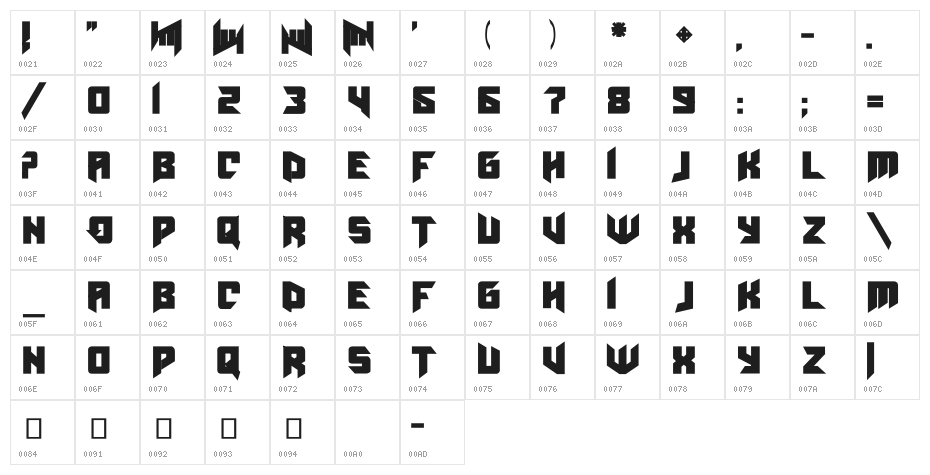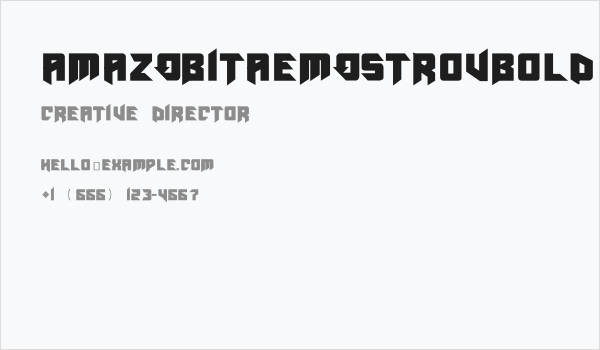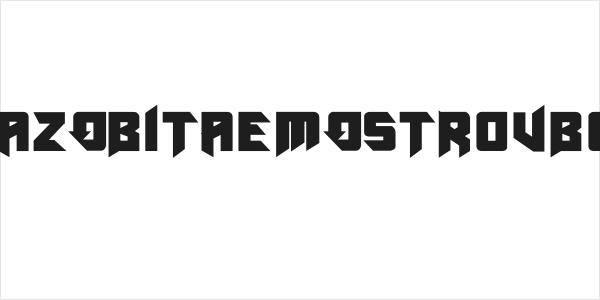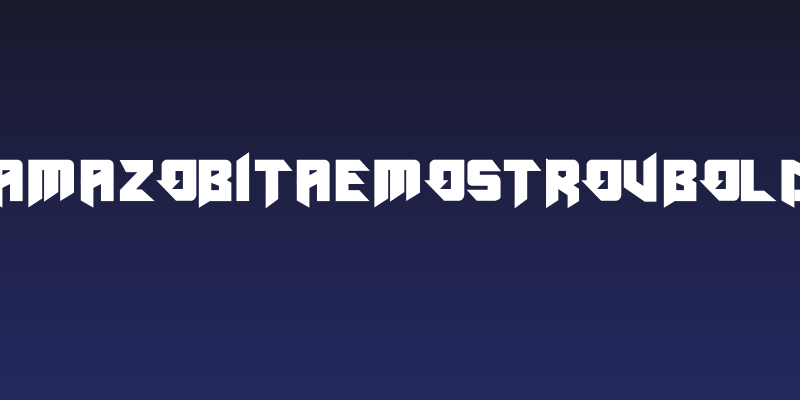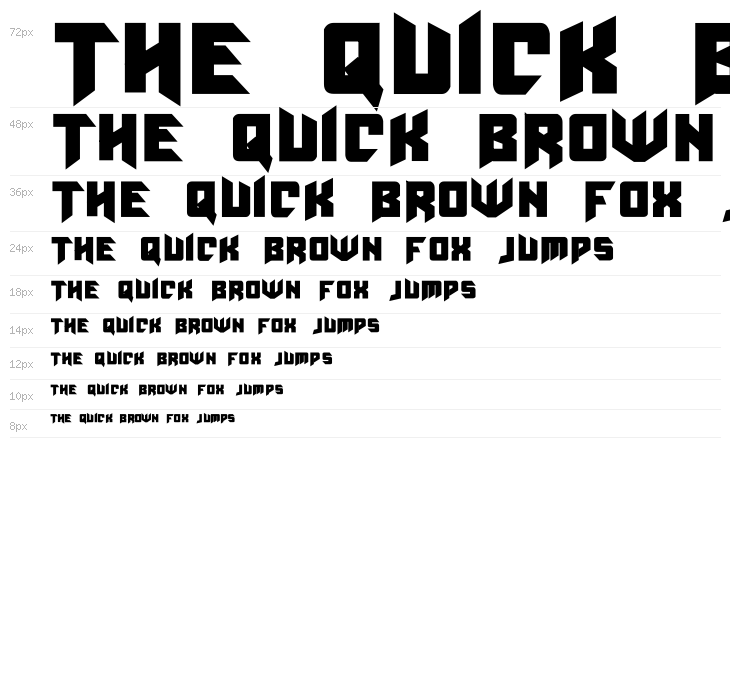
AmazObitaemOstrovBold Font
AmazObitaemOstrovBold Description
This font features a bold, geometric design with sharp angles and a futuristic aesthetic. The characters are constructed with a distinct blocky style, creating a sense of strength and modernity. The uppercase and lowercase letters maintain a consistent angular theme, while the numerals and special characters complement the overall design with similar sharp edges. The font's unique appearance makes it stand out, ideal for projects that require a strong visual impact.
| Proposed Projects | Ideal for sci-fi themed posters, video game titles, branding for tech companies, and any project needing a modern, impactful look. |